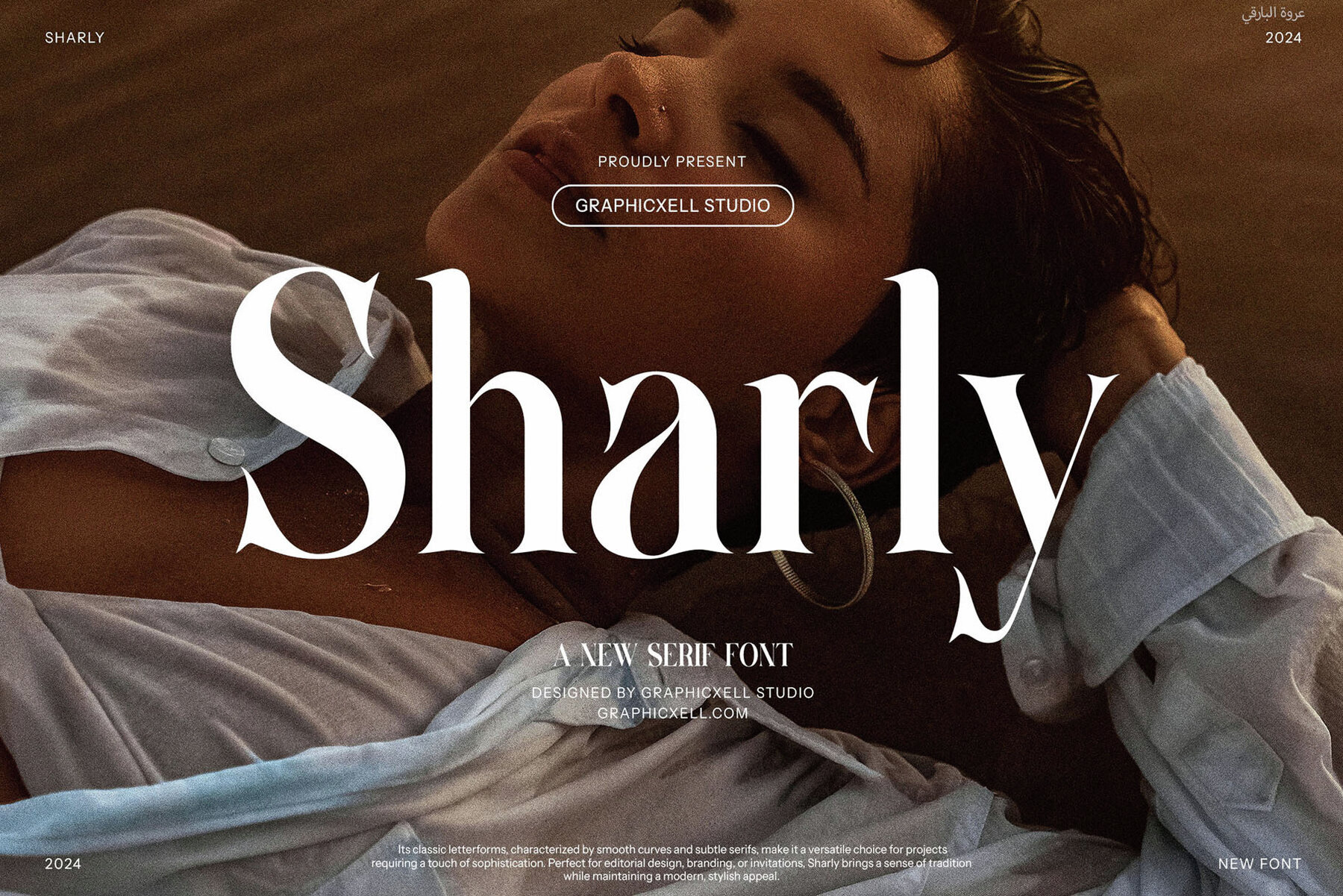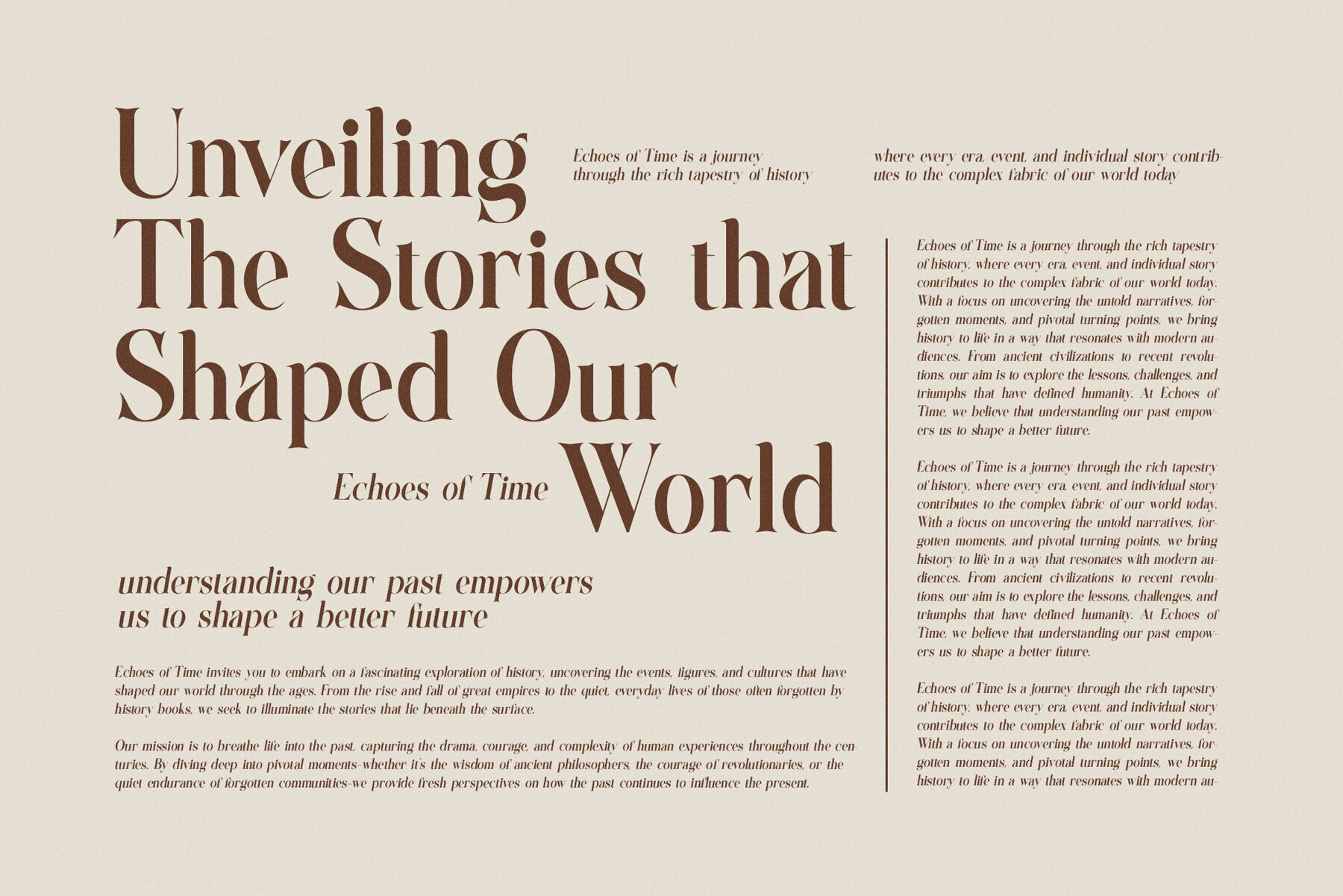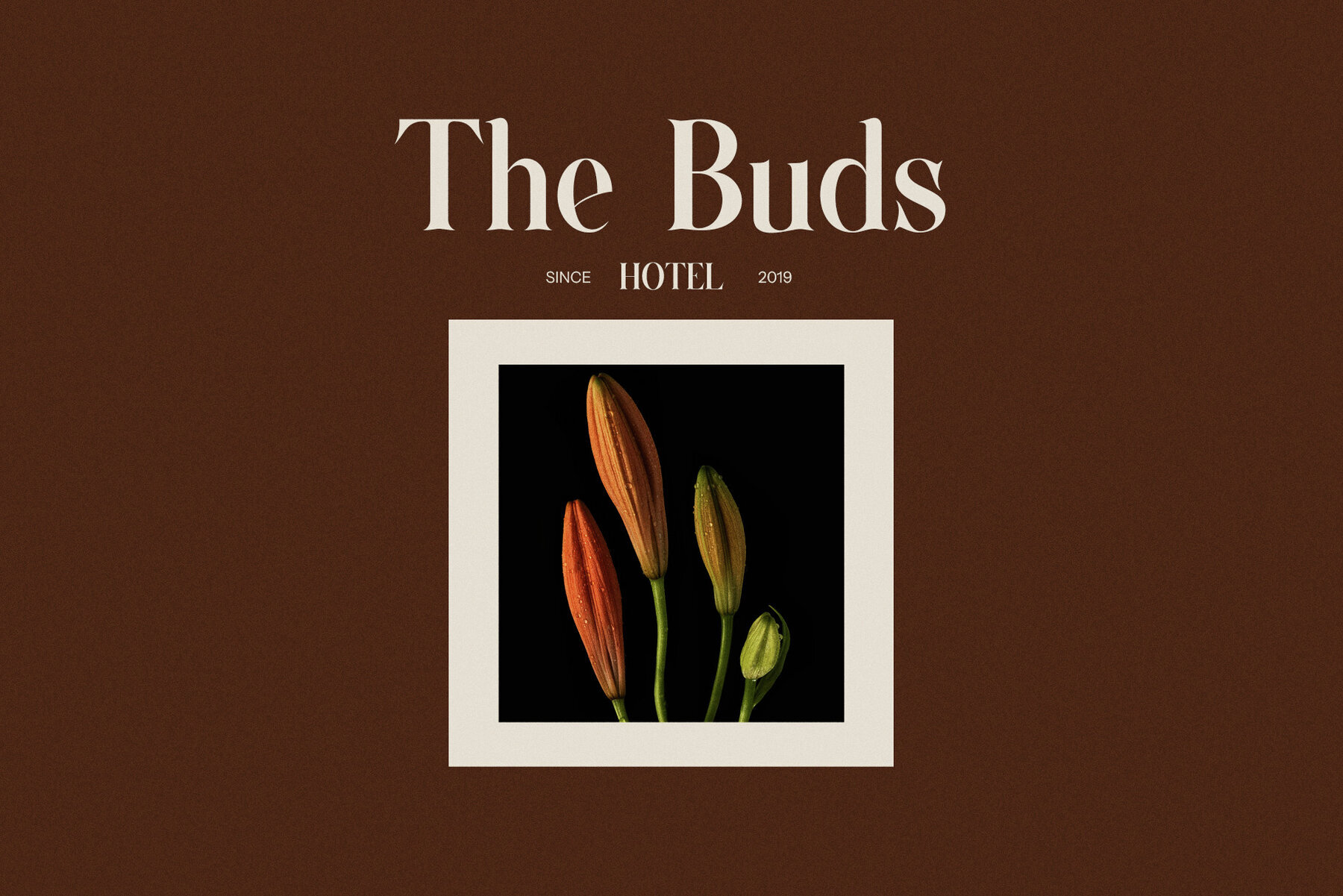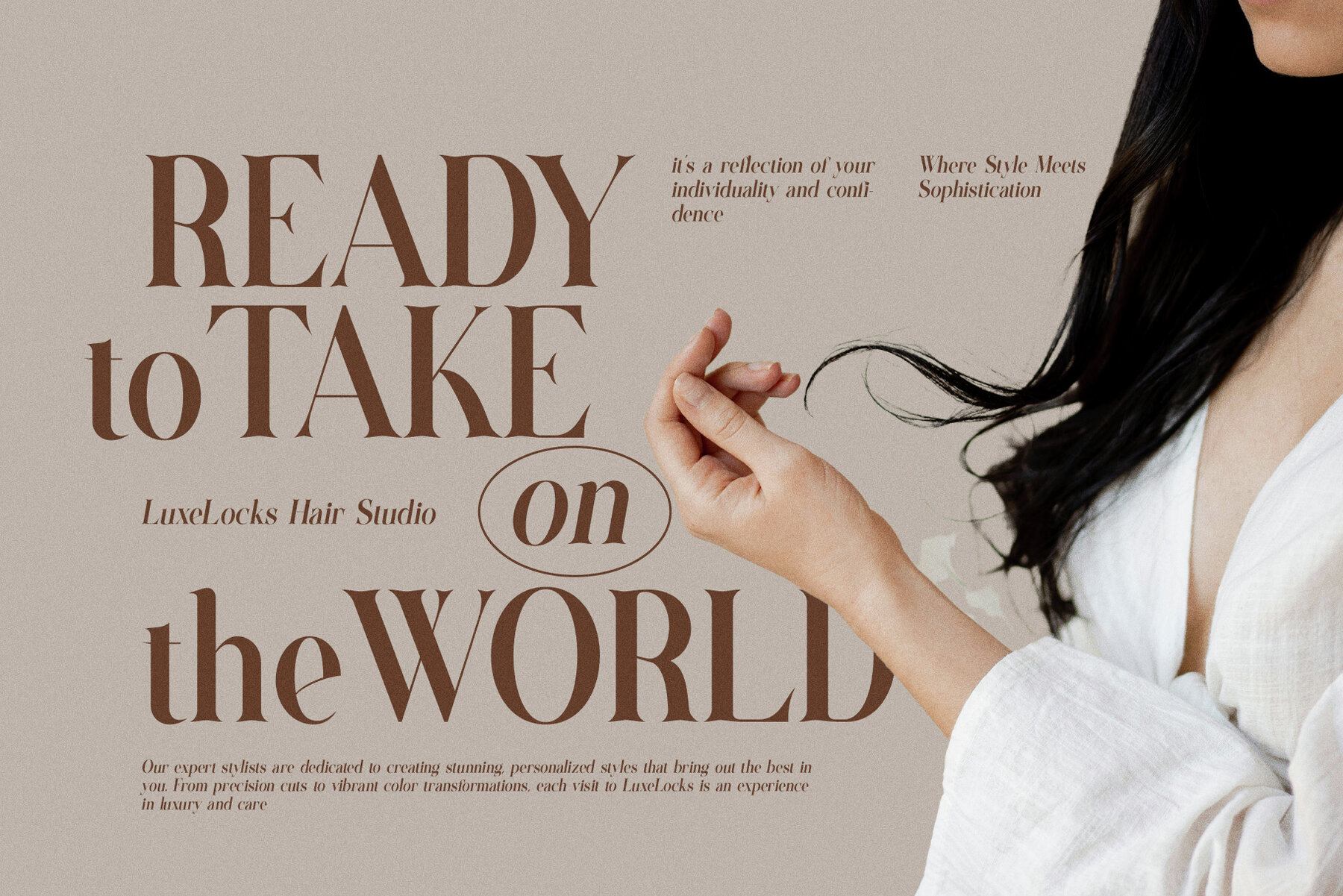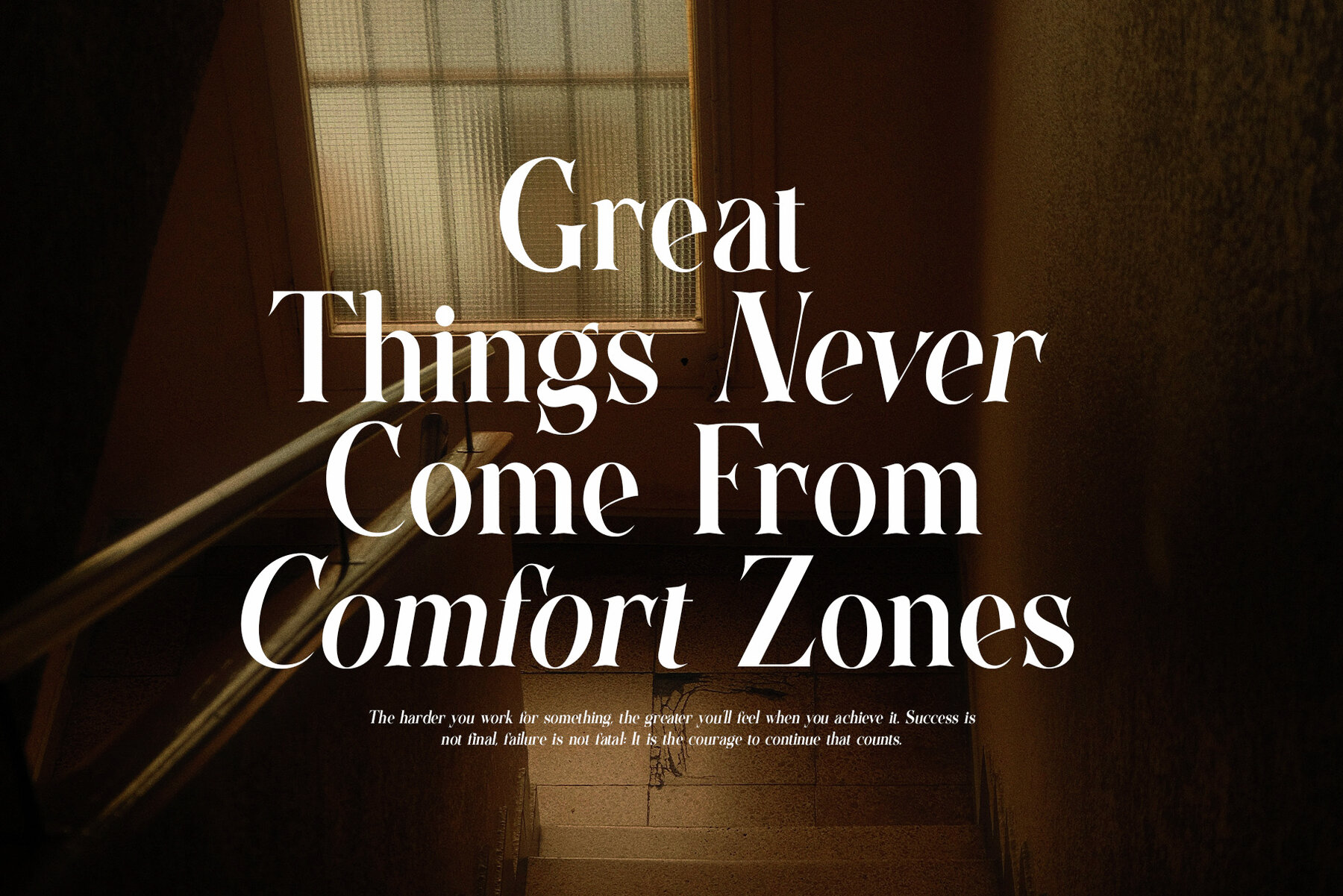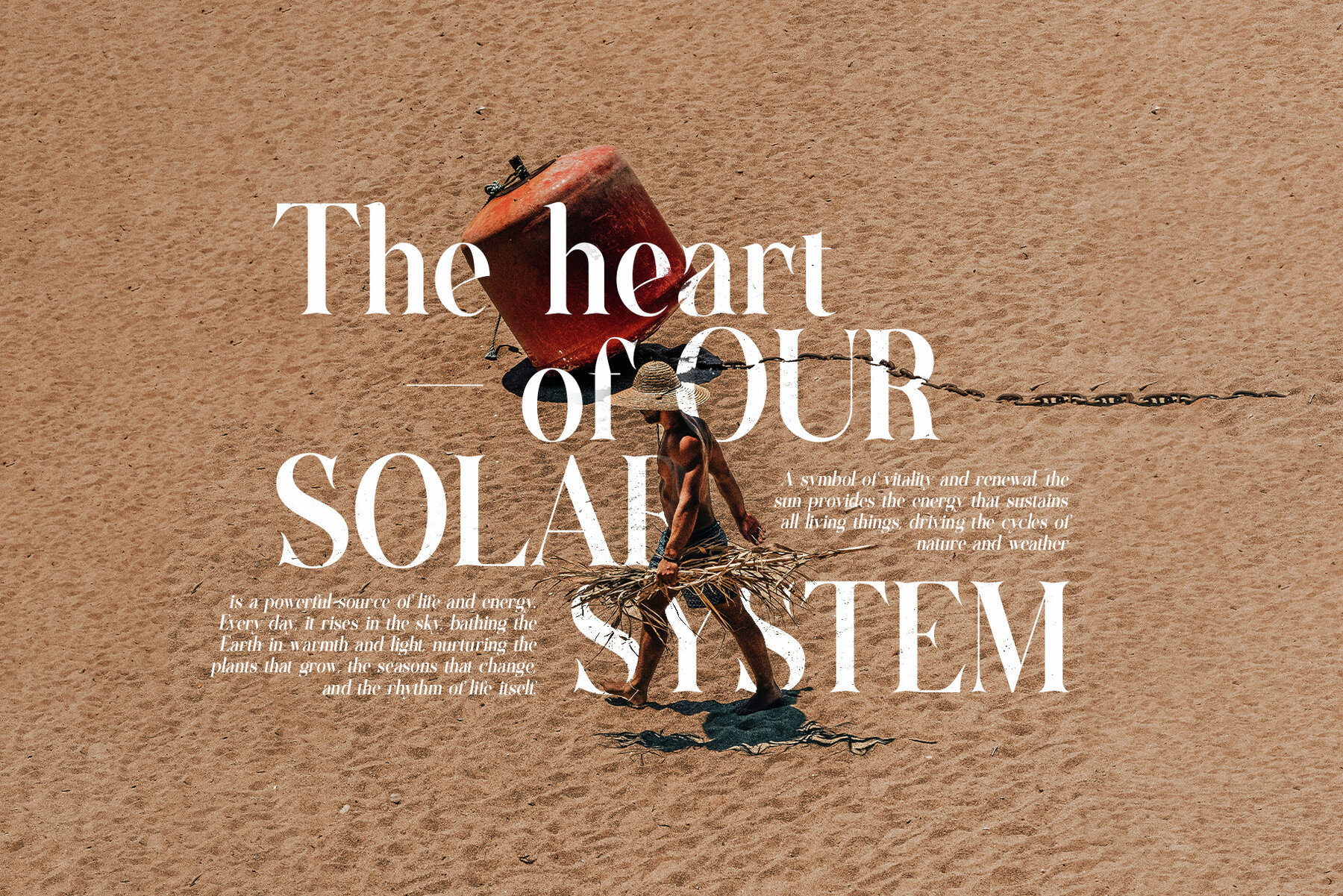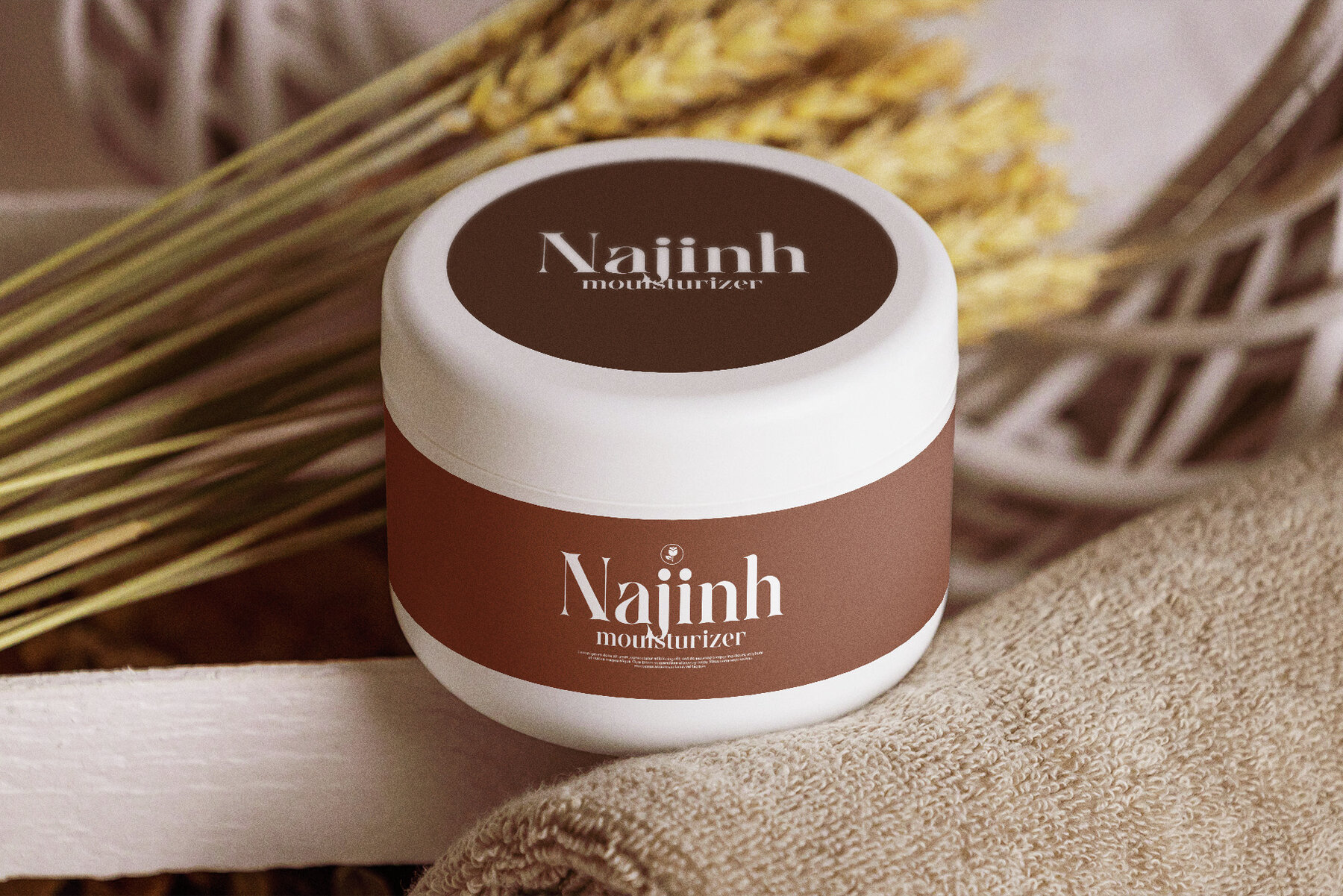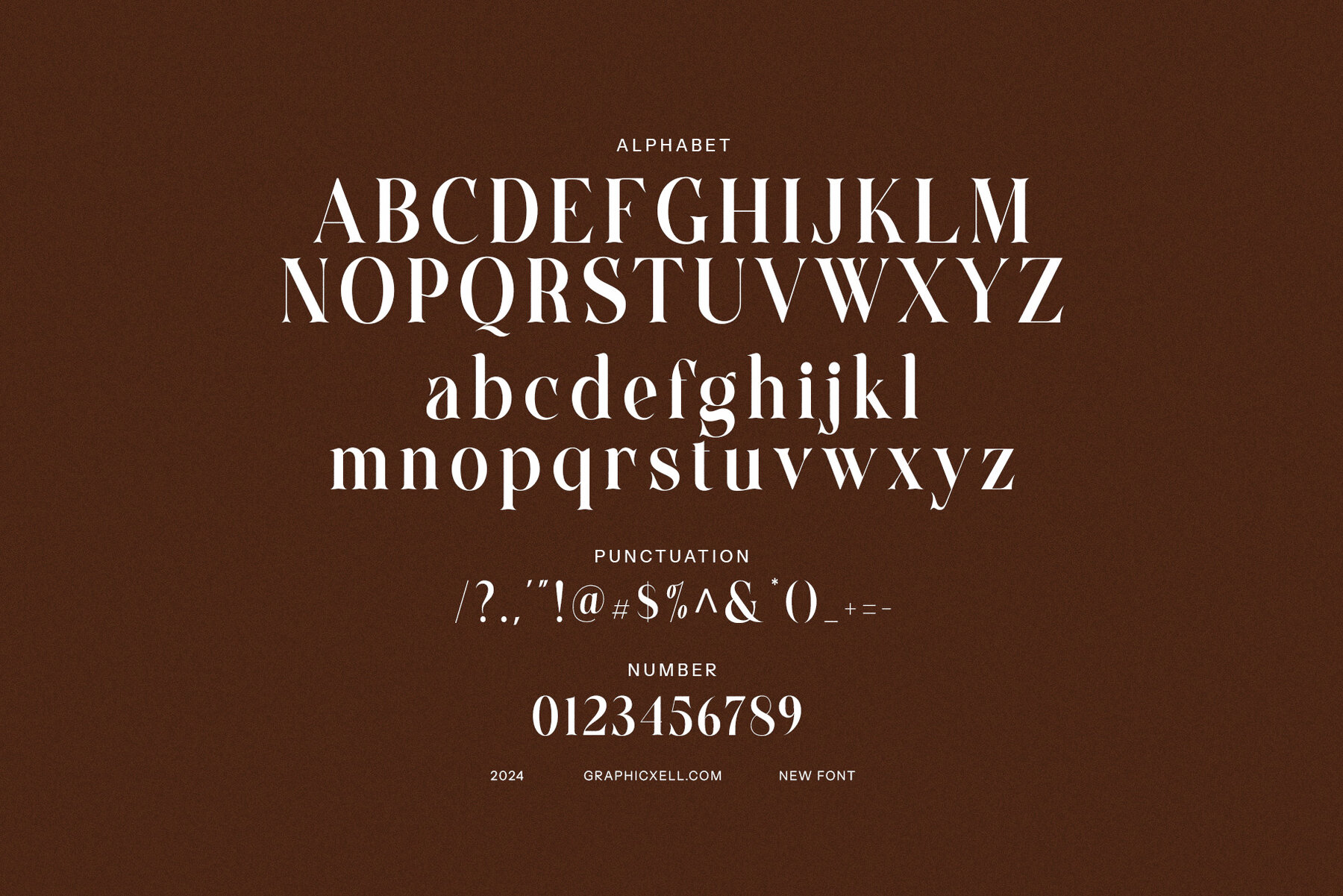
Sharly Font
SHARLY
The Sharly Vintage Serif Font offers a captivating blend of sophistication and charm, effortlessly bridging nostalgia with contemporary design. Its elegant serifs and distinctive letterforms create a unique personality that stands out in any project. Crafted meticulously, each character in Sharly adds a layer of elegance, perfect for logos, branding, and editorial layouts. Its graceful curves and well-balanced proportions ensure that it captures attention without overpowering. Ideal for upscale brand logos or chic magazine covers, Sharly enhances visual narratives with its refined presence.
Beyond print, the Sharly font shines in digital formats, maintaining clarity and impact across diverse applications. Whether on product packaging or in compelling advertisements, it adapts effortlessly, enriching the aesthetic appeal. Enhanced by a variety of ligatures and stylistic options, Sharly invites creativity, enabling designers to personalize typography with a distinctive flair. This flexibility supports innovation and provides endless possibilities in branding and design. Amid fleeting trends, its timeless elegance and unique character make Sharly an essential tool for leaving a lasting impression.